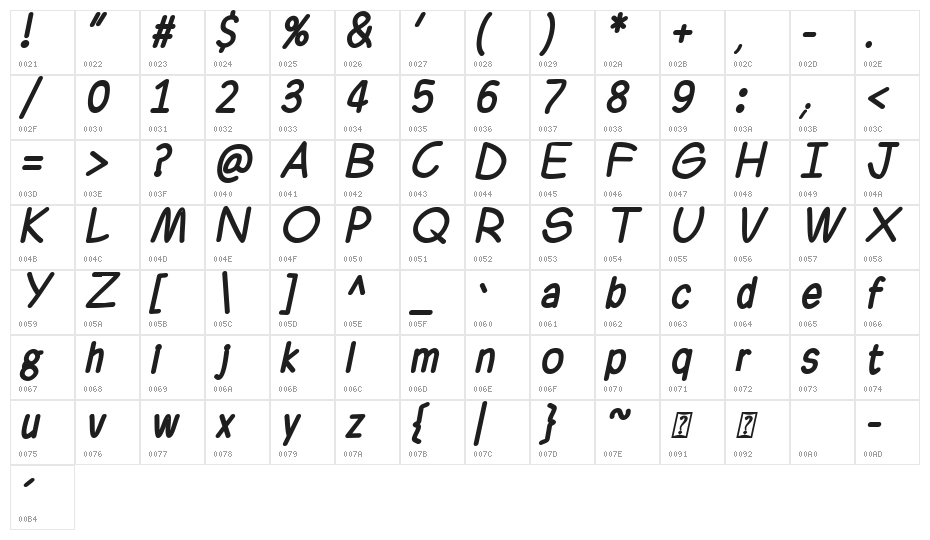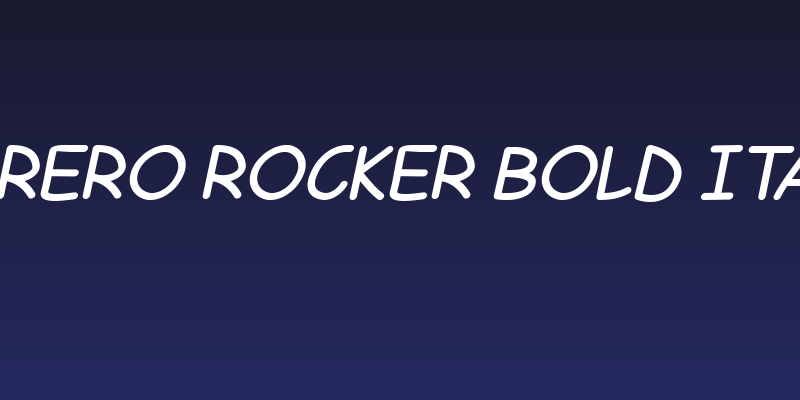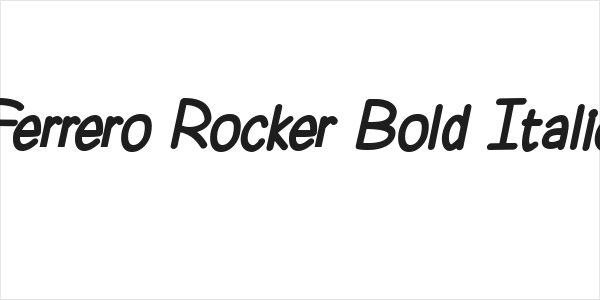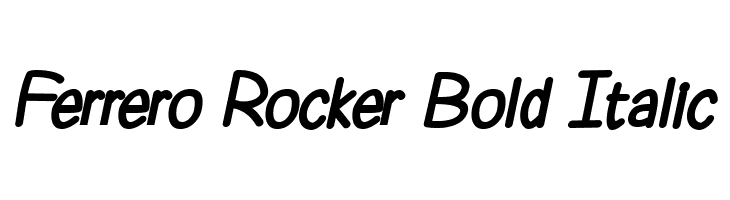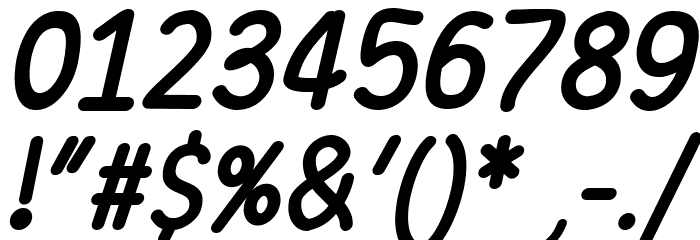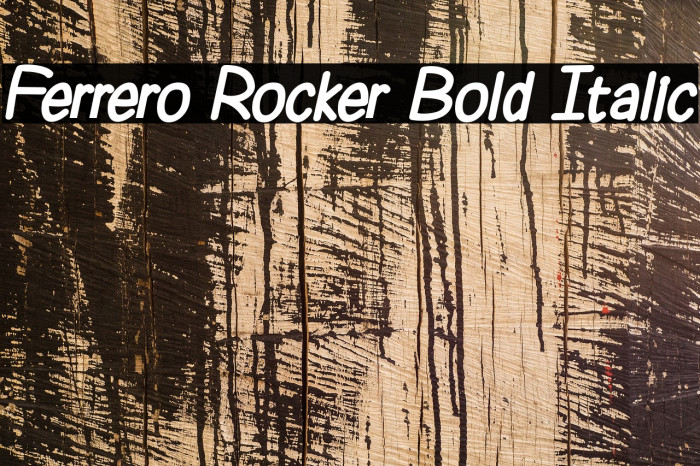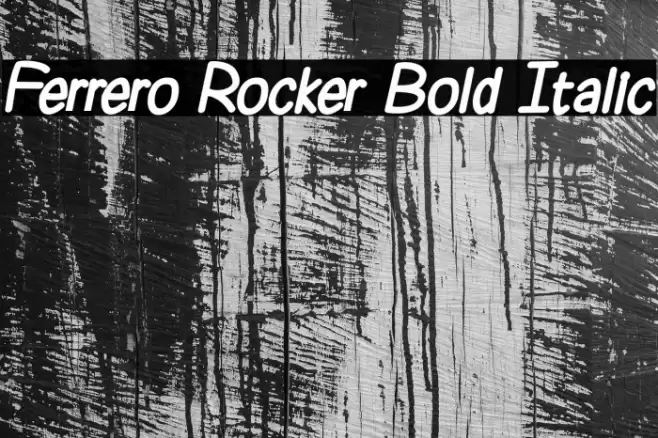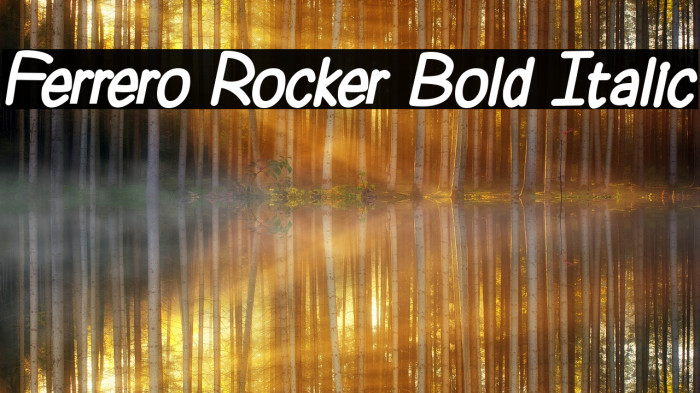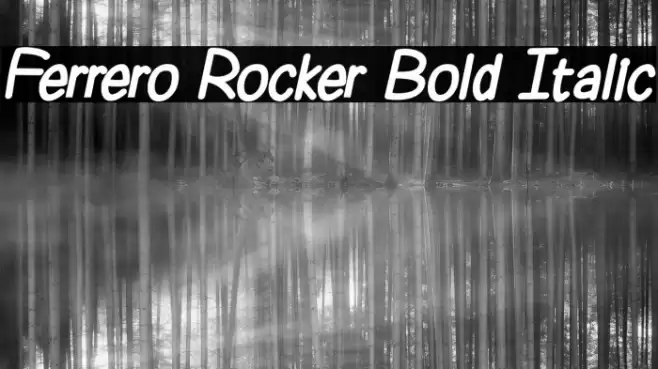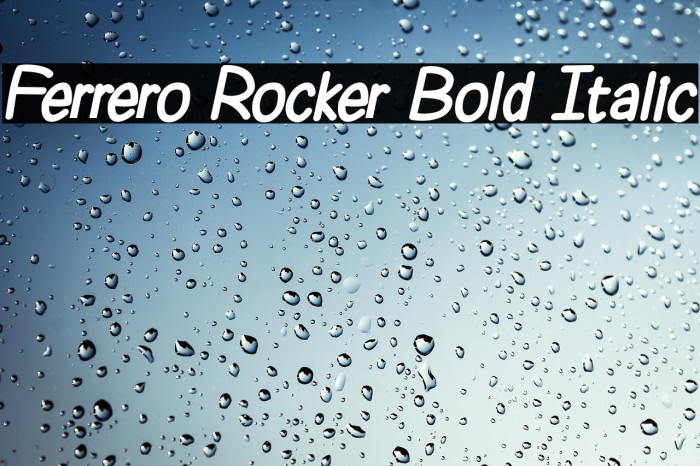
Ferrero Rocker Bold Italic Font
| Категория | Comic |
| Область применения | Headlines, Logos, Branding |
| Рекомендуемые проекты | Ideal for branding, advertising, and packaging design projects that require a modern and playful touch. |